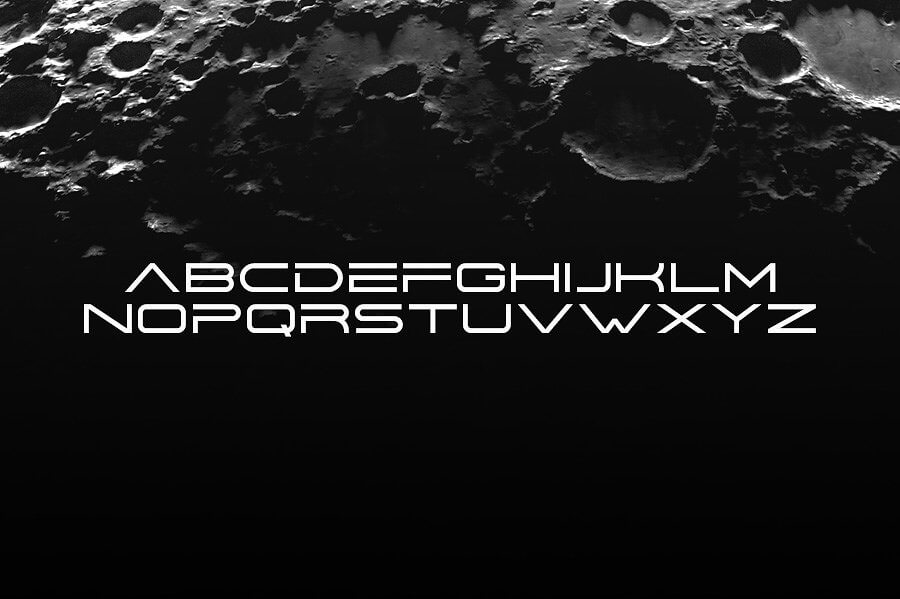
Cool Space Fonts – A Look At The Latest Trend In 2023
As the trend of futuristic and space-inspired designs continues to rise, more and more people are looking for cool space fonts to incorporate into their designs. From logos to packaging, websites to posters, cool space fonts are becoming increasingly popular. But what exactly are they, why are they so popular, and where can you find them? Let’s take a look.
What Are Cool Space Fonts?
Cool space fonts are a type of font that has a futuristic, space-inspired look and feel. They often feature sharp edges, bold curves, and a variety of geometric shapes and symbols. They can range from ultra-modern and minimalistic to more traditional and ornate. While these fonts are often associated with science fiction and space-related themes, they can also be used in a variety of other applications, from logos and branding to posters and packaging.
Why Are Cool Space Fonts So Popular?
Cool space fonts are popular for a variety of reasons. For one, they are visually striking and can help to draw attention to a design. They are also versatile and can be used in a variety of applications, both digital and print. Additionally, they are often associated with science fiction and space-related themes, which makes them an ideal choice for designers who want to evoke a futuristic or other-worldly feel.
Cool space fonts are a great choice for designers looking to add a futuristic, space-inspired look and feel to their designs. They are visually striking, versatile, and can be found in a variety of places, both free and paid. So if you’re looking to add a unique, eye-catching element to your designs, consider exploring the world of cool space fonts.